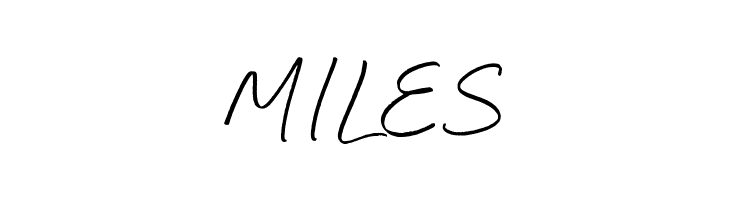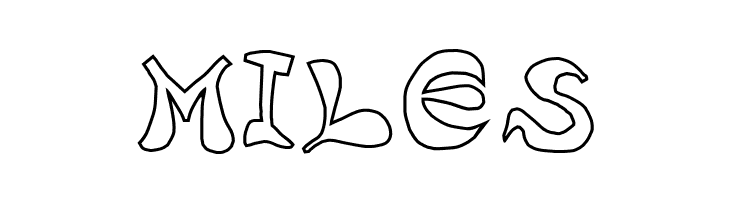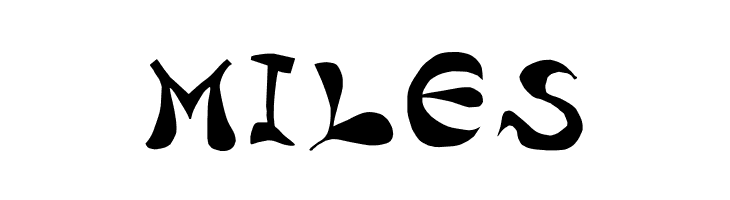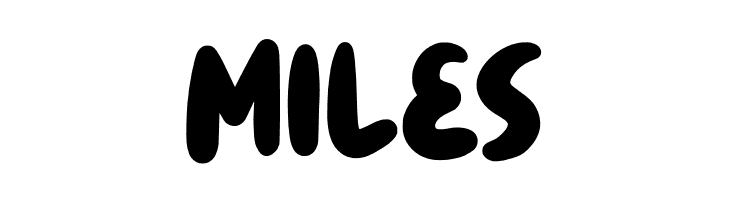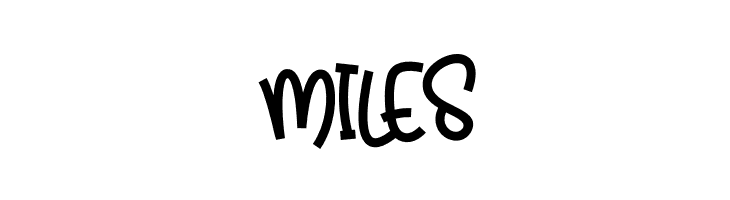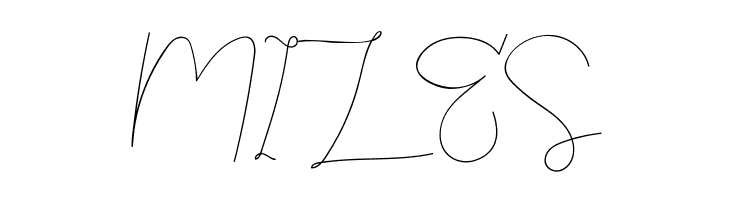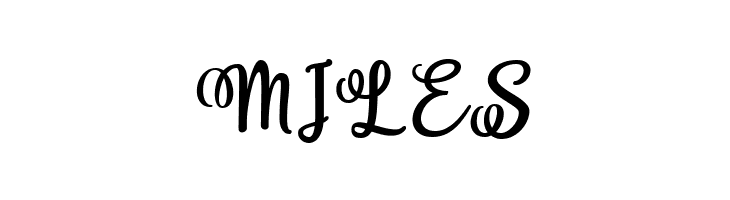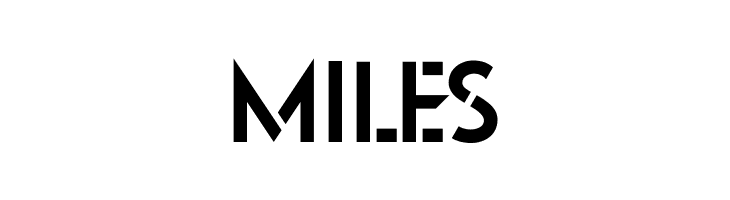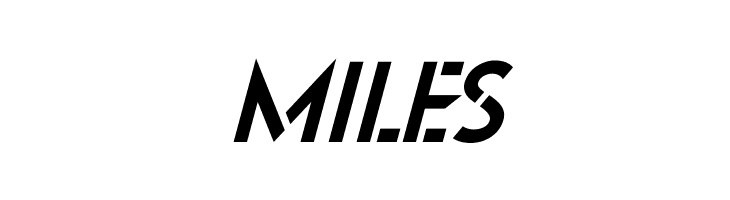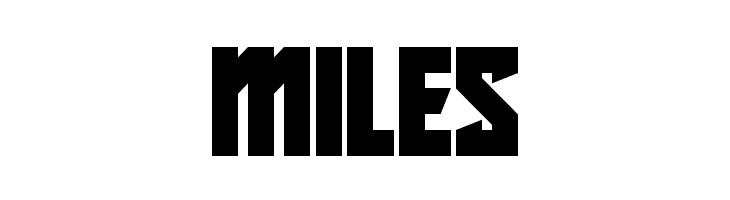
( Fonts by BLKBK - https://blkbk.ink - Personal-use only. For commercial use please contact owner. OFF SITE ) A fluid, elegant handwritten font with smooth, flowing lines. Download 8061 Downloads
( Fonts by Andhi Yulianto - Personal-use only. For commercial use please contact owner. ) A whimsical and playful script font with elegant flourishes and loops. Download 84 Downloads@WebFont
( Fonts by Darrell Flood - Personal-use only. For commercial use please contact owner. ) A futuristic, geometric font with bold, angular lines and a modern aesthetic. Download 27 Downloads@WebFont
( Fonts by Darrell Flood - Personal-use only. For commercial use please contact owner. ) A futuristic italic font with sharp angles and high contrast, ideal for dynamic designs. Download 42 Downloads@WebFont
( Fonts by Billy Argel - www.billyargel.com - Personal-use only. For commercial use please contact owner. ) A distressed, grunge-style font with a rough, textured appearance. Download 111 Downloads@WebFont
( Fonts by Darrell Flood - Personal-use only. For commercial use please contact owner. ) A bold, geometric font with a futuristic and impactful design. Download 21 Downloads@WebFont
( Fonts by Darrell Flood - Personal-use only. For commercial use please contact owner. ) A bold, angular font with a futuristic and dynamic style. Download 39 Downloads@WebFont
( Fonts by www.junkohanhero.com - Personal-use only. For commercial use please contact owner. ) A bold, outlined font with a playful, retro aesthetic and hand-drawn quality. Download 87 Downloads@WebFont
( Fonts by Christopher Hansen ) A whimsical, decorative font with intricate swirls and a vintage, storybook feel. Download 8880 Downloads@WebFont
( Fonts by a Des Gomez. Personal-use only. For commercial use please contact owner. ) A playful handwritten font with a casual and friendly style. Download 87 Downloads@WebFont
( Fonts by a Max Infeld - XEROGRAPHER FONTS - xerographer.blogspot.com . Personal-use only. For commercial use please contact owner. ) A bold, textured font with a distressed, grunge-like appearance. Download 176 Downloads@WebFont
( Fonts by Burhan Afif - hanscostudio.com - Personal-use only. For commercial use please contact owner. ) A bold, handwritten font with playful, rounded strokes and a dynamic flow. Download 50 Downloads@WebFont
( Fonts by Maulana Creative - Gilang Maulana - Personal-use only. For commercial use please contact owner. ) A fluid and elegant script font with smooth, flowing lines and cursive letterforms. Download 55 Downloads@WebFont
( Fonts by Mans Greback - Personal-use only. For commercial use please contact owner. ) A dynamic and expressive script font with fluid, cursive letterforms. Download 264 Downloads@WebFont
( Fonts by StringLabs - stringlabscreative.com - Personal-use only. For commercial use please contact owner. ) A bold, flowing script font with a dynamic, handwritten style. Download 26 Downloads@WebFont
( Fonts by StringLabs - stringlabscreative.com - Personal-use only. For commercial use please contact owner. ) A bold, cursive handwritten font with dynamic and expressive strokes. Download 22 Downloads@WebFont
( Fonts by Fran Fernandez - Personal-use only. For commercial use please contact owner. ) A bold, textured font with a handcrafted feel and strong presence. Download 327 Downloads@WebFont
( Fonts by Yoga Letter - Isroni Yoga Prasetya - Personal-use only. For commercial use please contact owner. ) An elegant and flowing script font with ornate uppercase and smooth lowercase letters. Download 37 Downloads@WebFont
( Fonts by Simran Sahni - Personal-use only. For commercial use please contact owner. ) A decorative and artistic font with abstract animal-like forms and flowing curves. Download 27 Downloads@WebFont
( Fonts by Edric Studio - Personal-use only. For commercial use please contact owner. ) A delicate, flowing script font with thin, elegant lines and a modern calligraphic style. Download 46 Downloads@WebFont
( Fonts by Rometheme Studio - Yahdi Kumala - Personal-use only. For commercial use please contact owner. ) A playful, handwritten script font with connected characters and moderate stroke thickness. Download 27 Downloads@WebFont
( Fonts by GFR Creative - Personal-use only. For commercial use please contact owner. ) A dynamic and flowing script font with elegant curves and smooth connections. Download 27 Downloads@WebFont
( Fonts by inumocca_type - Inu Mocca - Personal-use only. For commercial use please contact owner. ) A bold, angular typeface with a futuristic and dynamic style. Download 41 Downloads@WebFont
( Fonts by Muhammad Ahwal Bobby - Personal-use only. For commercial use please contact owner. ) A playful, bold script font with a handwritten style. Download 149 Downloads@WebFont
( Fonts by Rantautype - Yudi Pratama Chandra - Personal-use only. For commercial use please contact owner. ) A playful, handwritten font with smooth curves and a casual style. Download 84 Downloads@WebFont
( Fonts by Makasimase Studio - Personal-use only. For commercial use please contact owner. ) A modern, geometric font with rounded and angular elements, perfect for contemporary designs. Download 45 Downloads@WebFont
( Fonts by Typefar ) A bold, rounded font with a playful and energetic style. Download 183 Downloads@WebFont
( Fonts by Typefar ) A bold, playful font with rounded edges and a smooth, flowing style. Download 244 Downloads@WebFont